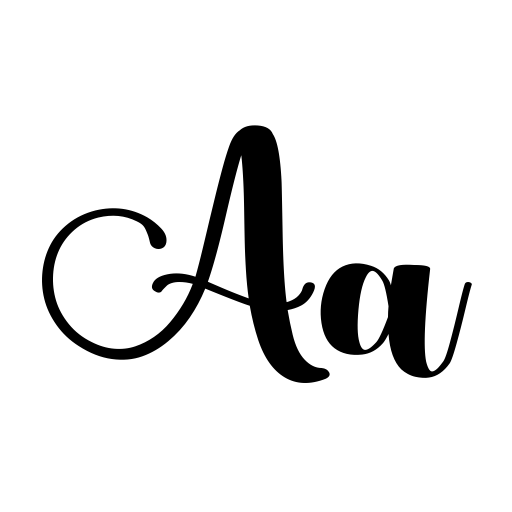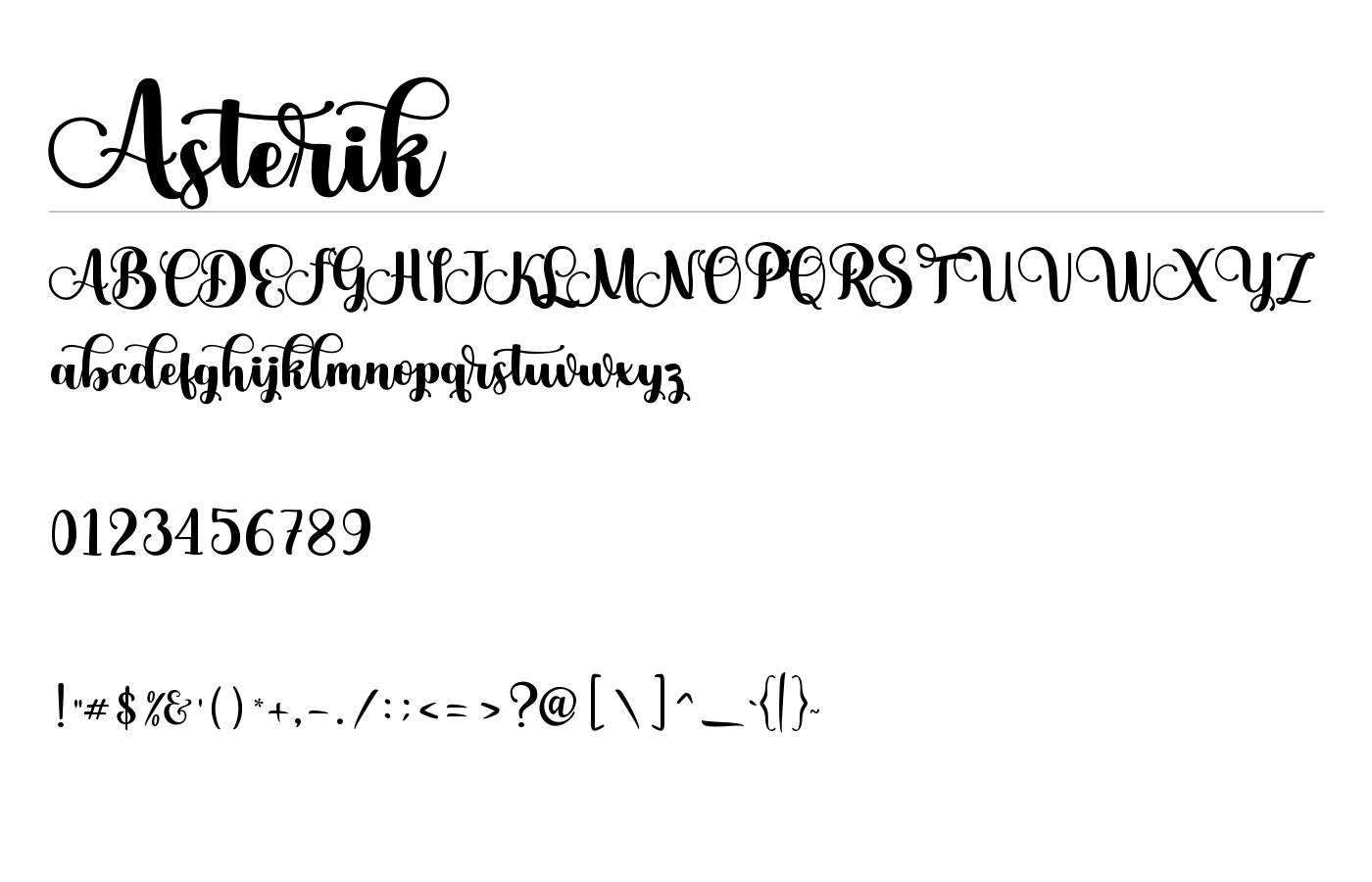
Asterik is an elegant script font with a playful, handcrafted feel, showcasing thick and thin strokes that add sophistication and charm. Its decorative swashes and curls make it ideal for creative branding, invitations, and headline use where a stylish, personal touch is desired. This font's lively personality works best in designs that seek a blend of elegance and whimsy.
Asterik Font